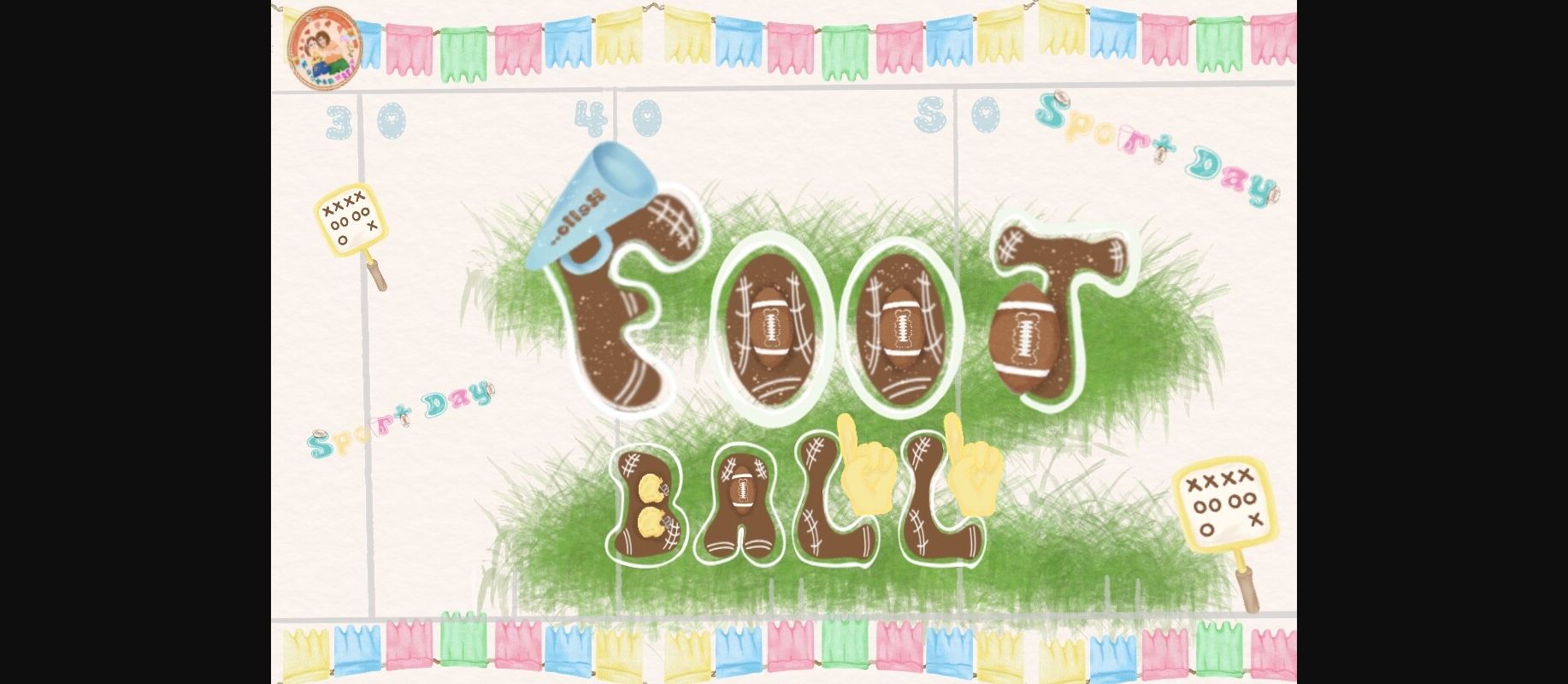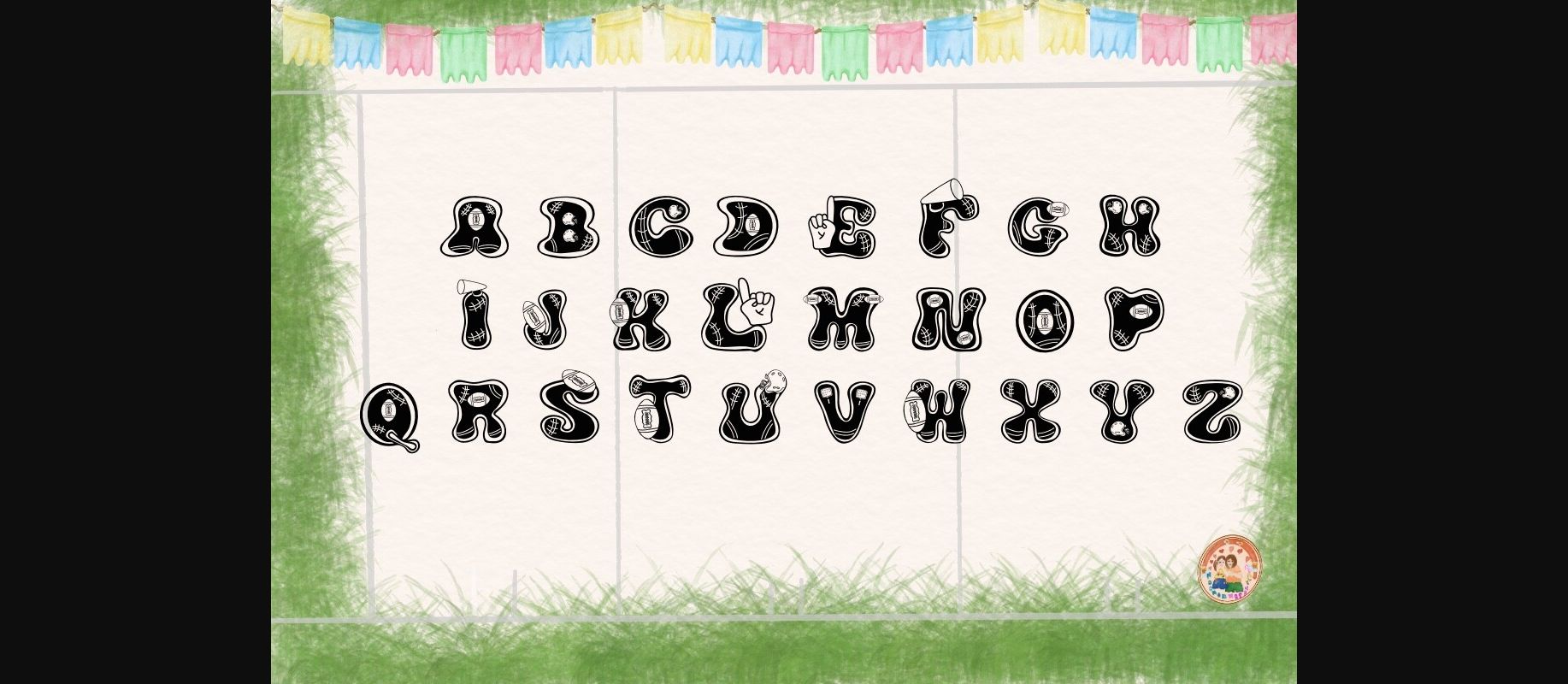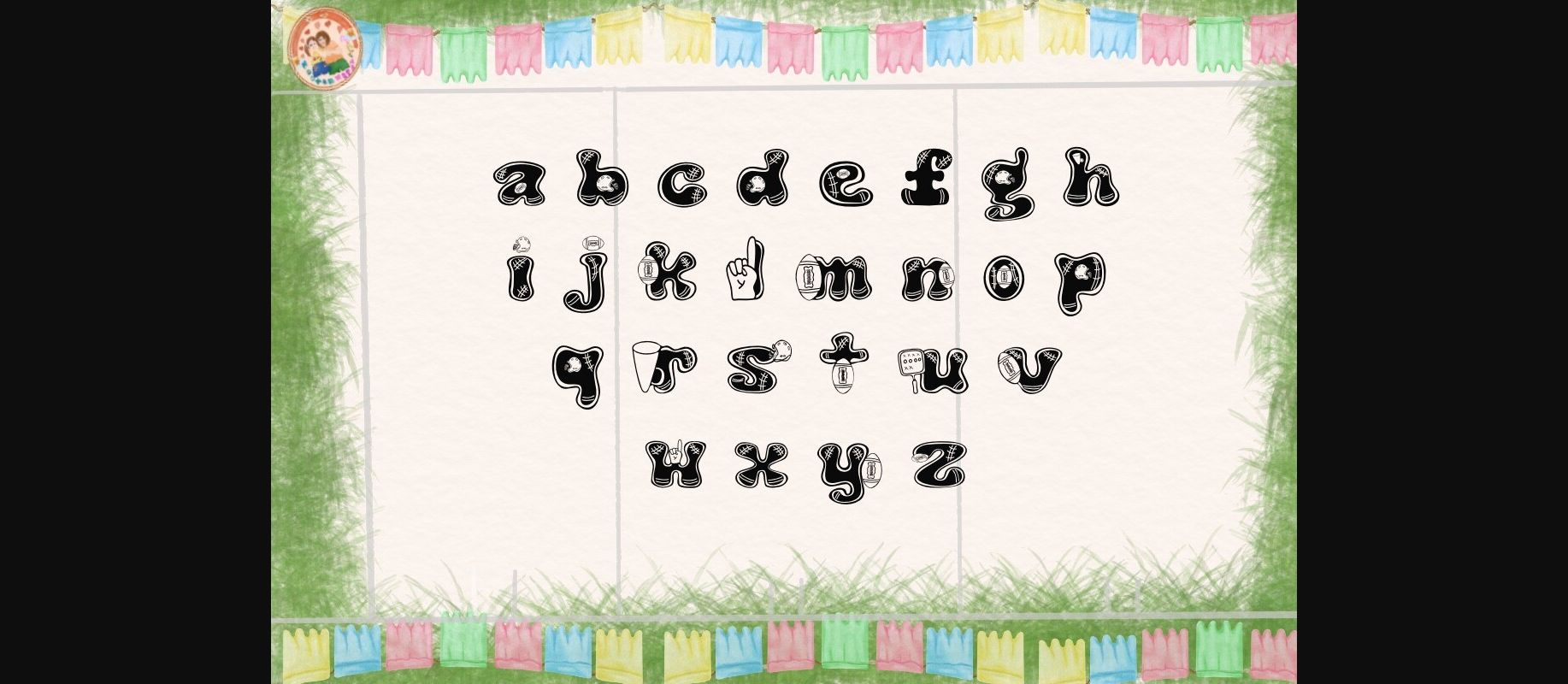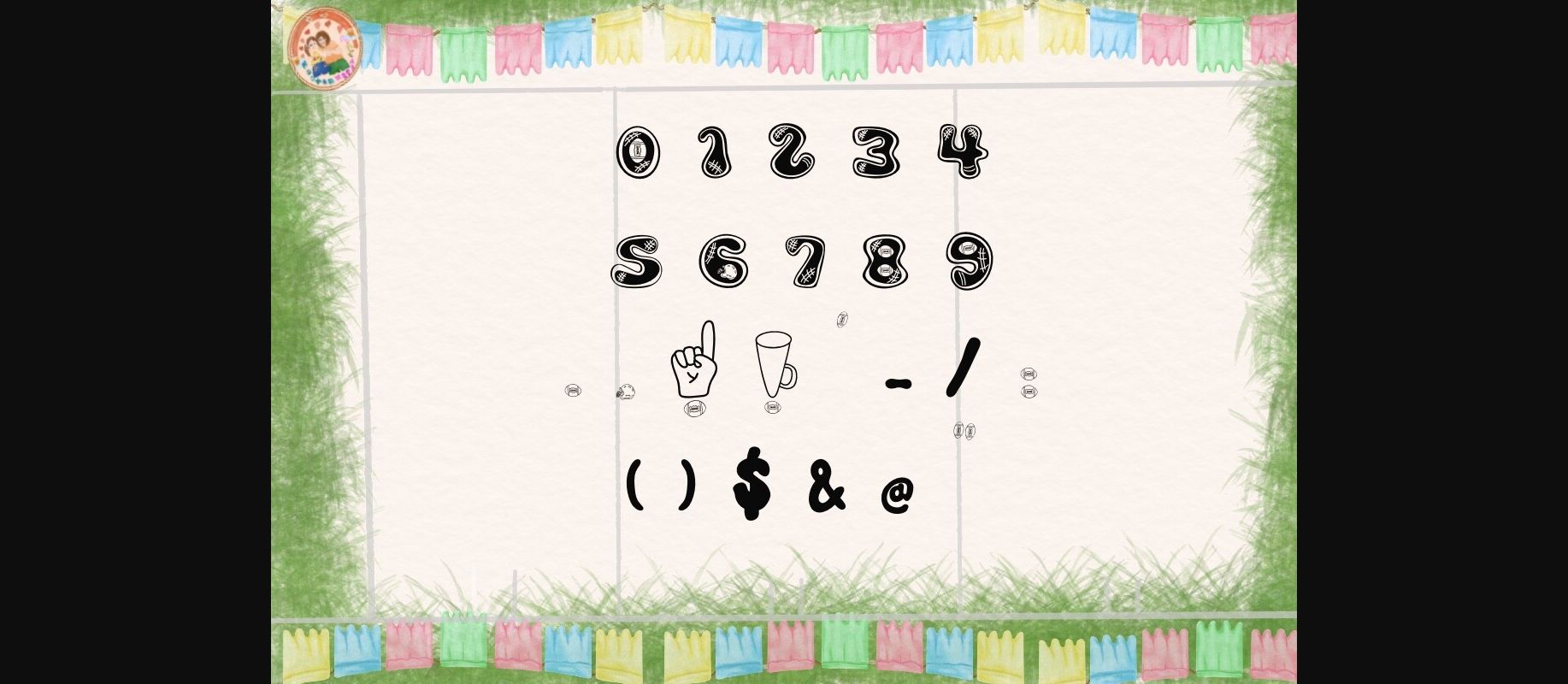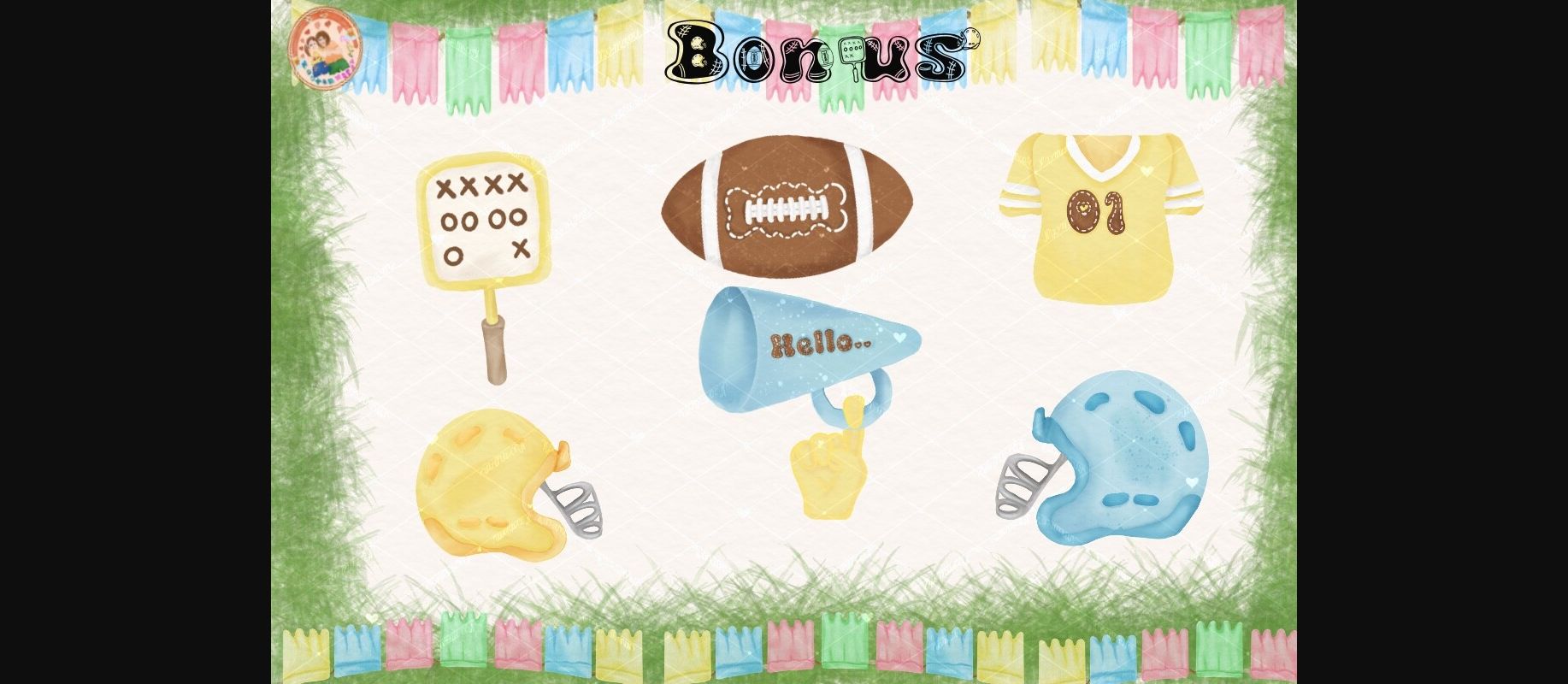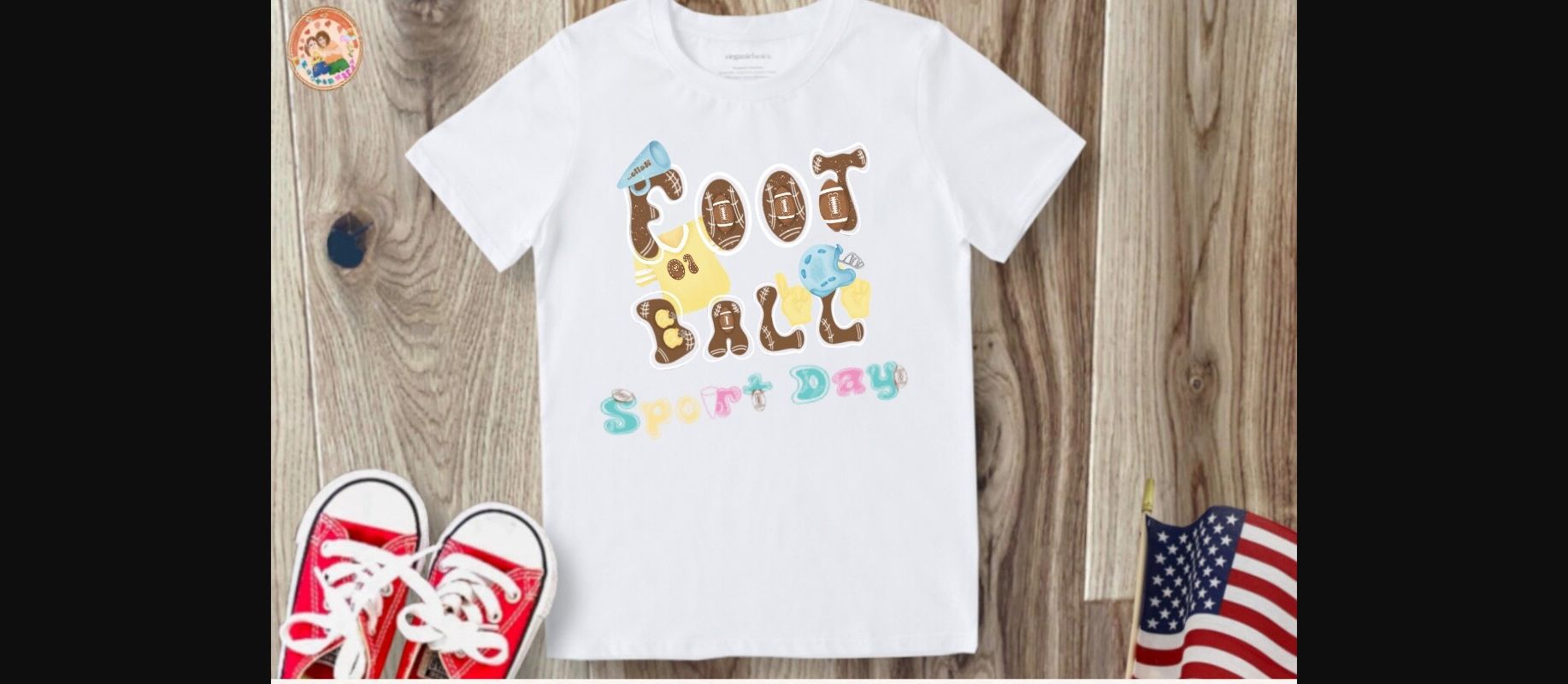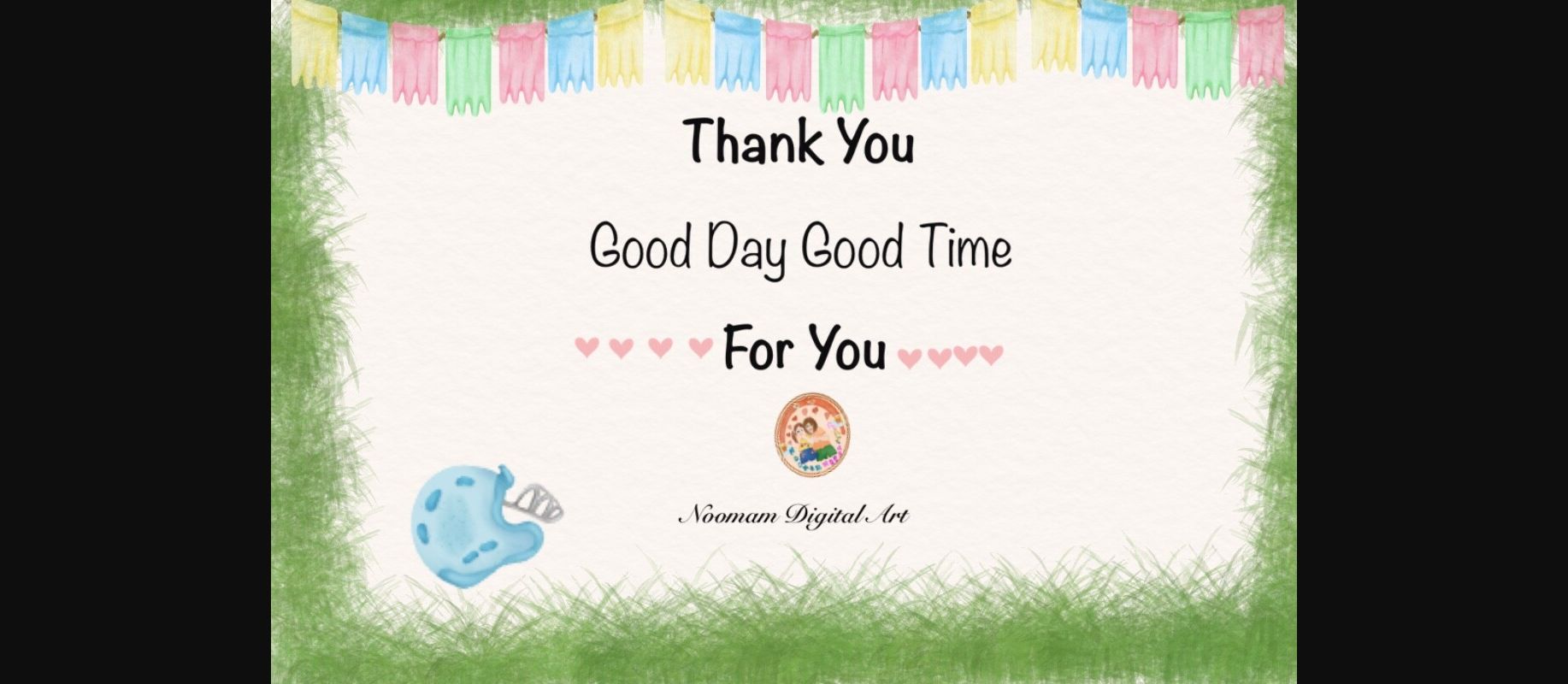
Football Font
About Football Font
Football is a groovy and cute font. Fall with this decorative font and create gorgeous invitations, beautiful stationary art, eye-catching social media posts, and cute greeting cards. Add this beautiful font to each of your creative ideas, and notice how it makes them stand out.